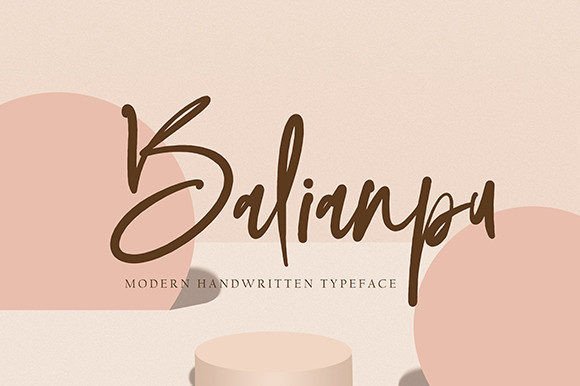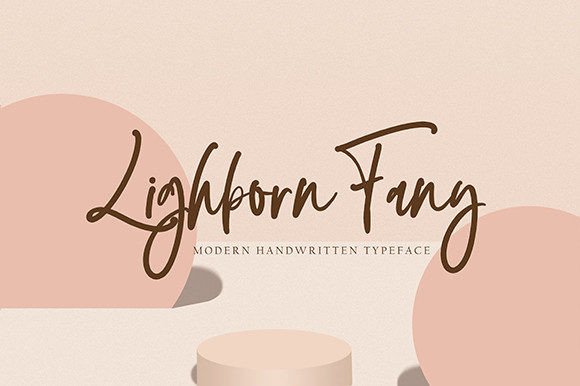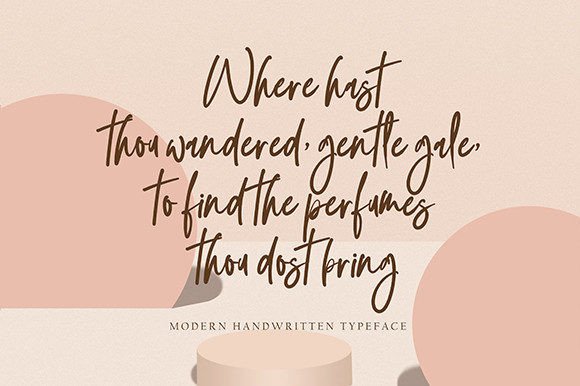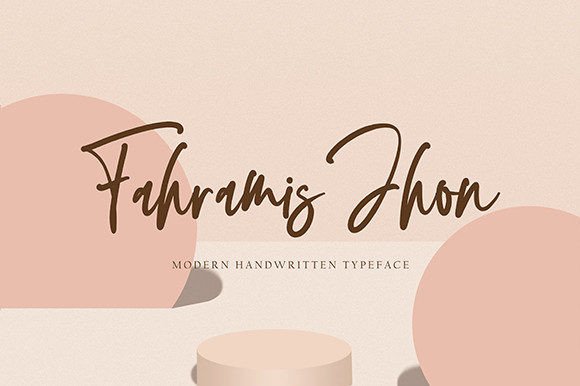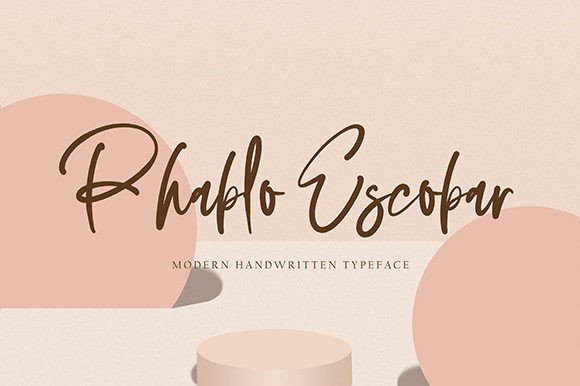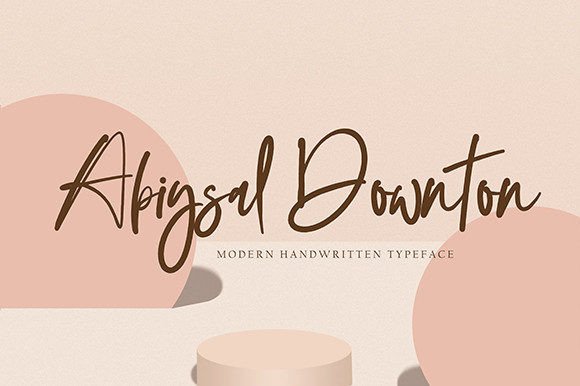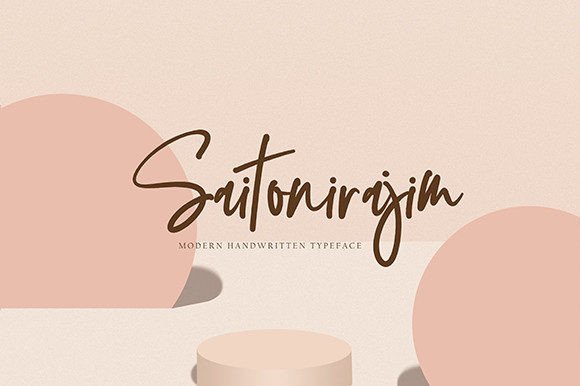
Discover the Charm of Handwritten Typography
Have you ever been struck by the magic of a handwritten note, the way it adds a personal touch to an otherwise ordinary message? For designers, capturing that same essence in a digital format can be a game-changer. It’s moments like these that inspired the creation of the Balianpu Font, a fresh and natural handwritten font designed to bring a touch of warmth to any project.
The Balianpu Font is perfect for a wide range of applications, from quotes and logos to blog headers and posters. Its versatility and unique charm make it an invaluable tool for designers looking to add a personal touch to their work.
With the Balianpu Font, designers can create beautiful, handcrafted typography that stands out from the crowd. Whether you’re working on a personal project or a commercial campaign, this font is sure to bring a touch of personality to your design.
Balianpu Font Key Features
- Font Family: Balianpu is a unique, hand-drawn font family designed to evoke a sense of elegance and sophistication.
- Character Set: Balianpu includes a comprehensive set of characters, including Latin, Cyrillic, and Greek alphabets, as well as punctuation and special characters.
- Unique Characteristics: Balianpu features a distinctive, hand-drawn style with intricate flourishes and subtle variations in letterform design, giving it a truly unique and eye-catching appearance.
Balianpu Font Review
As a designer, I was excited to dive into the Balianpu Font and see what it had to offer. Here’s my honest review.
- Unique style: The Balianpu Font has a distinctive, hand-crafted feel that’s perfect for adding a touch of personality to your designs.
- Good legibility: The font is well-suited for body text, making it a great choice for articles, blog posts, and other written content.
- Wide character set: The font includes a wide range of characters, including international scripts and symbols.
- Limited font sizes: The font doesn’t perform well at very small or very large sizes, which can make it difficult to use in certain situations.
- Not ideal for headlines: While the font is great for body text, it’s not the best choice for headlines or titles due to its relatively small x-height.
The Balianpu Font is a solid choice for designers looking for a unique, hand-crafted font. While it may have some limitations, its good legibility and wide character set make it a great option for a wide range of projects.
Balianpu Font Practical Application Guide
Tips: Use Balianpu Font to add a touch of elegance to your presentations and documents.
Balianpu Font is ideal for:
– Luxury branding and marketing materials
– High-end fashion and design projects
– Elegant invitations and wedding stationery
– Sophisticated business presentations and reports
Alternatives to Balianpu Font
Playfair Display is an elegant, luxurious serif font that is perfect for creating a high-end look. It features a classic, traditional feel with intricate details and flourishes. When to use: Luxury brands, high-end fashion, fine dining, and upscale products.
Comparison to Balianpu Font: Playfair Display has a more refined, sophisticated feel compared to Balianpu Font, which has a more exotic and mysterious vibe. While Balianpu Font has a stronger cultural connection, Playfair Display offers a more universal appeal.
Great Vibes is a modern, elegant script font that is perfect for creating a sophisticated, high-end look. It features a flowing, cursive design with a touch of elegance and refinement. When to use: Luxury brands, high-end fashion, fine dining, and upscale products.
For optimal readability, we recommend using a font size between 12px and 18px, with a line height of at least 1.5 times the font size. This will ensure clear and legible text, even at smaller font sizes.